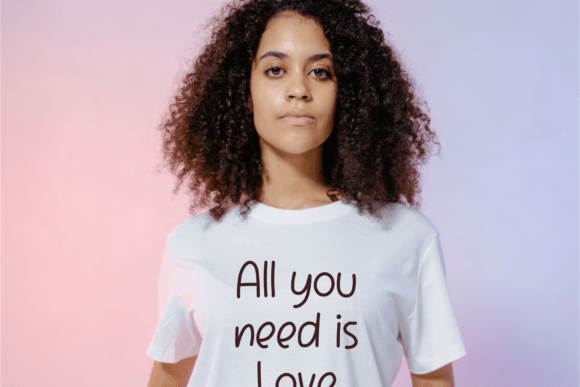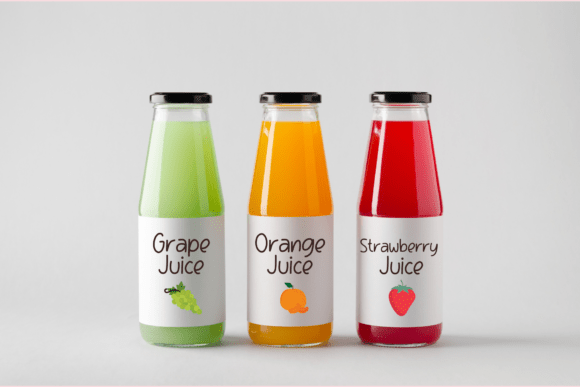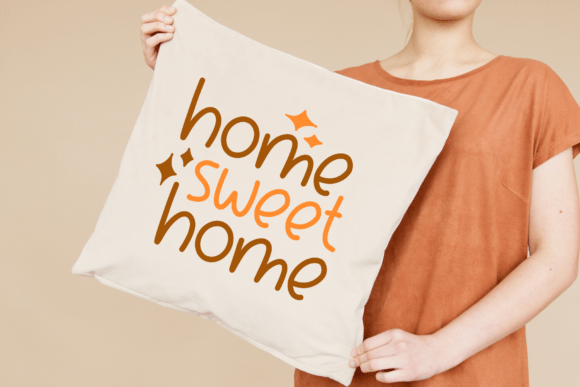
Introduction to Smart Notes Font
Have you ever been working on a design project and suddenly, you need a font that perfectly captures the essence of your creative vision? I’m sure we’ve all been there – staring at a blank canvas, trying to find the perfect words to bring our idea to life. For designers, the right font can make all the difference between a good design and a great one. That’s why I’m excited to introduce you to the Smart Notes Font – a beautiful, handwritten font that’s perfect for any creative project.
Whether you’re working on a blog post, logo, or invitation, the Smart Notes Font is a valuable design resource that’s sure to elevate your design. Its high-quality, transparent background makes it easy to use in any design, and its playfulness and authenticity are sure to add a personal touch to your work. And the best part? It’s a free download, making it accessible to designers of all levels.
Key Features of Smart Notes Font
- High-quality design resource with a transparent background, perfect for creative projects.
- Includes a range of weights and styles to suit different design needs, from casual to formal.
- High-resolution design (scalable up to 72,000 points) ensures crisp and clear typography, even in large formats.
- Smart Notes Font is a unique and versatile design resource that can be used for various applications, including print and digital media.
- Perfect for designers who value flexibility and are looking for a high-quality font that can be easily customized to suit their creative project’s needs.
Honest Review: Smart Notes Font
As a designer, I’m always on the lookout for high-quality design resources that can elevate my creative projects. The Smart Notes Font is one such find that I’m excited to share with you.
- ✨ The font is clean and minimal, making it perfect for notes, journals, and other design projects that require a subtle look.
- ✨ The font comes with a transparent background, making it easy to place on top of any design element.
- ✨ The font is highly customizable, allowing me to adjust the size, color, and style to fit my project’s needs.
- ⚠️ The font only comes in a limited number of weights, which may not be suitable for projects that require a range of styles.
- ⚠️ The font is not as versatile as some other design fonts, making it less suitable for more complex projects.
Overall, I’m impressed with the Smart Notes Font and would definitely recommend it for simple design projects. It’s a high-quality design resource that’s easy to use and customize. With a few limitations in mind, I’d say it’s a great addition to any designer’s toolkit.
Smart Notes Font
Tips for Getting the Most Out of Smart Notes Font
Experiment with different font sizes and colors to create visually appealing designs. Use the transparent background to layer the font over other design elements. Combine the Smart Notes Font with other design resources for a unique and creative look.
The Smart Notes Font is perfect for a wide range of creative projects, including presentations, documents, social media graphics, and more. Use it to add a touch of professionalism and creativity to your designs.
Alternatives to Smart Notes Font
Great Vibes Font is a free download high-quality font ideal for designers working on creative projects that require a fun, casual, and elegant feel. It features a transparent background, making it perfect for use on any design resource. When to use: Social media graphics, flyers, and posters.
Great Vibes Font is similar to Smart Notes Font in its cursive style, but it has a more playful and modern feel. While Smart Notes Font is more elegant and sophisticated, Great Vibes Font is perfect for designers who want to add a touch of whimsy to their creative project.